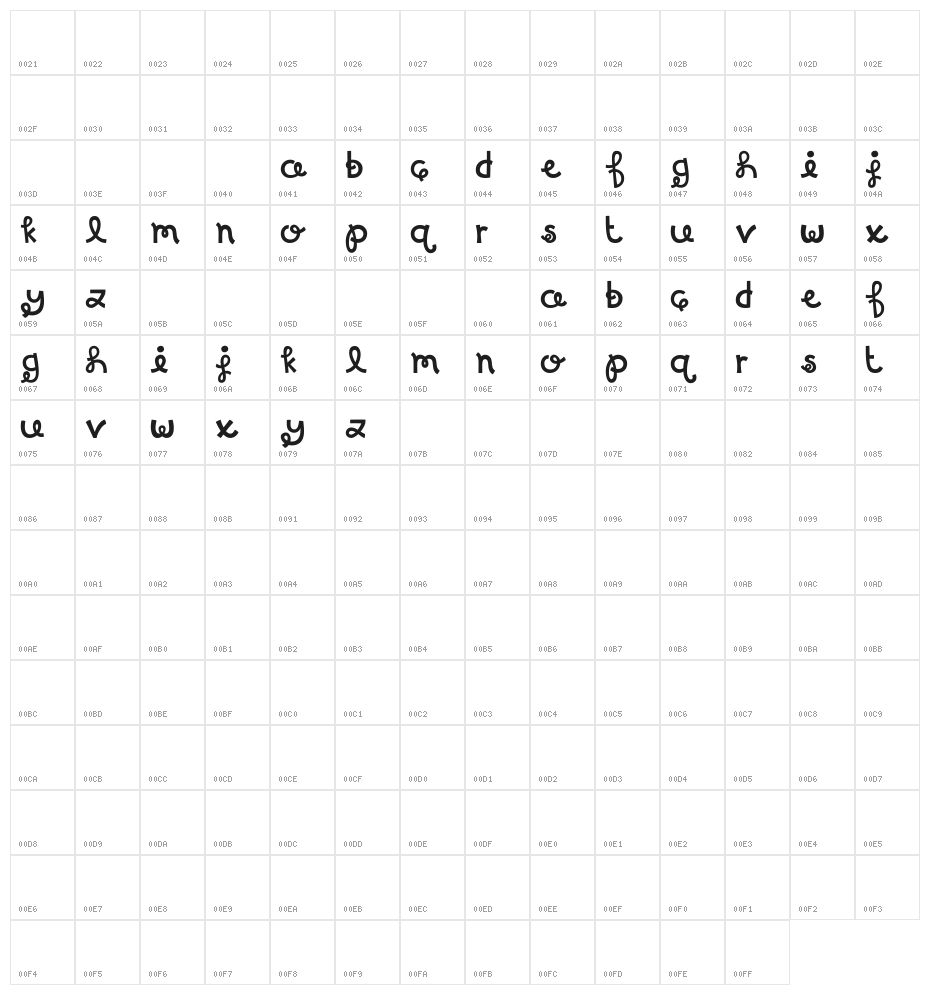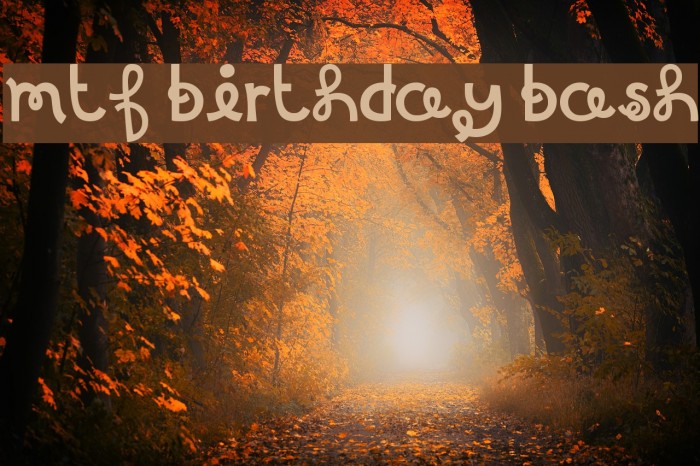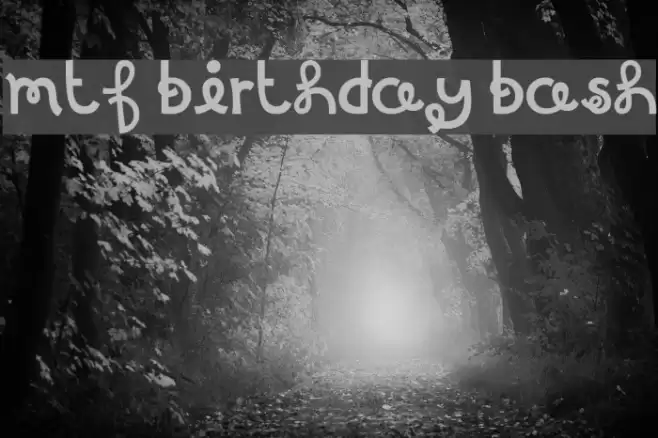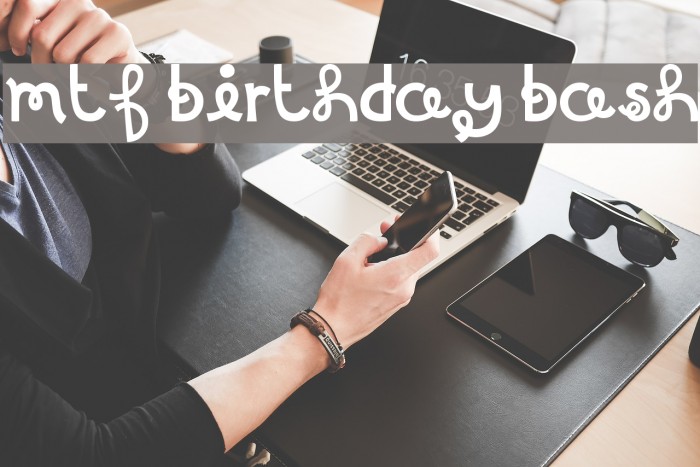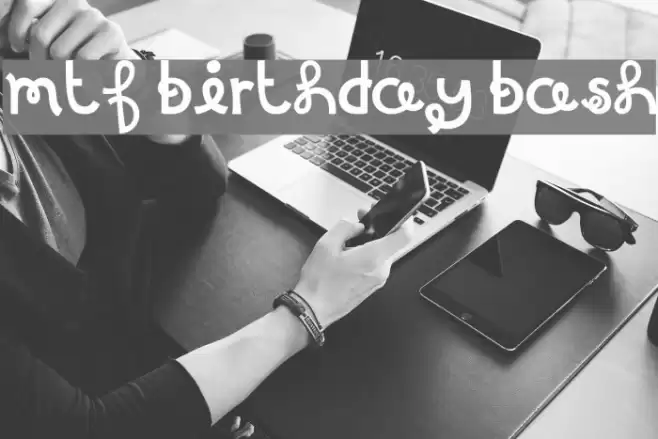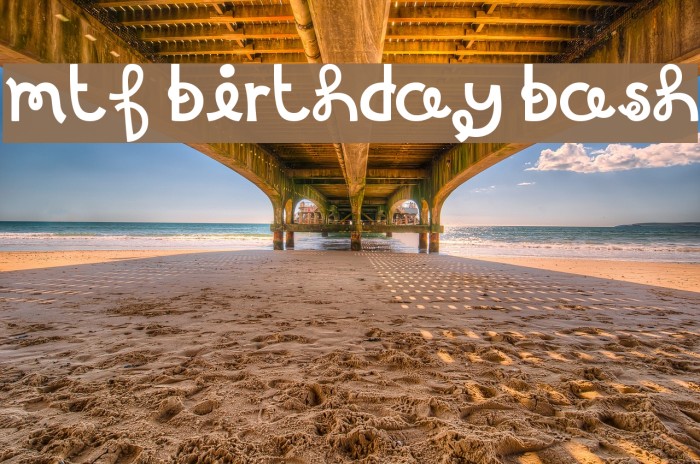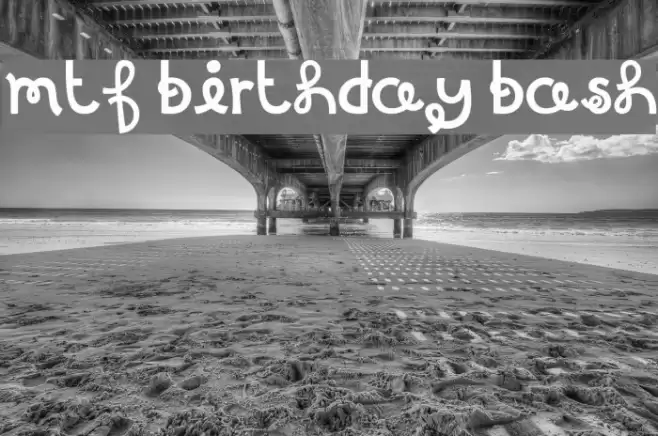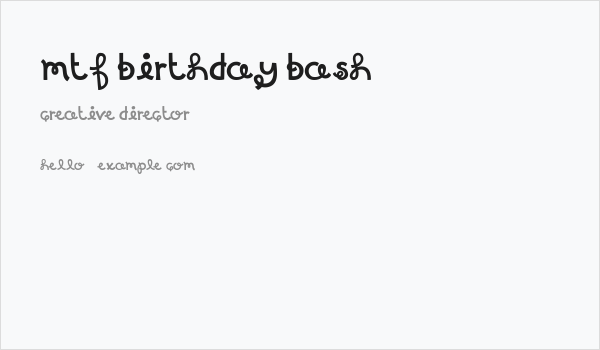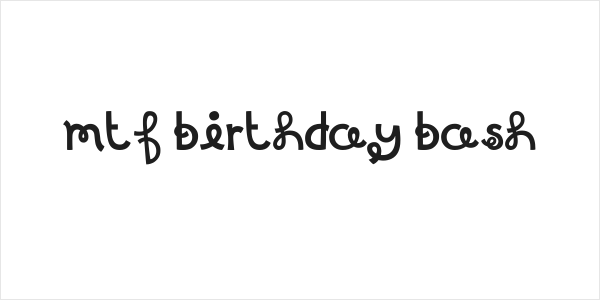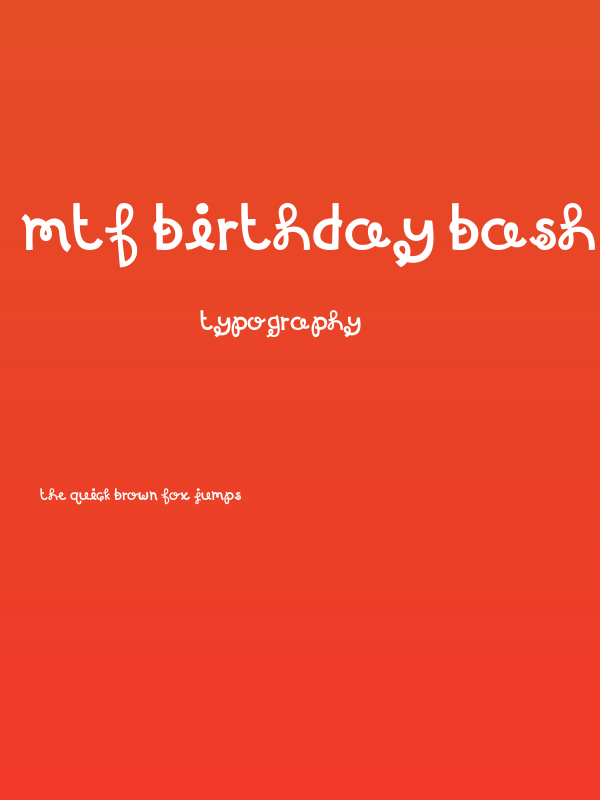
MTF Birthday Bash Font
MTF Birthday Bash Description
This font features a playful and whimsical design, characterized by its curly and looping letterforms. Each character has a unique flair, with exaggerated curves and swirls that give it a lively and festive appearance. The font maintains a consistent stroke width, contributing to its bold and eye-catching style. The lowercase letters are particularly distinctive, with some characters incorporating unexpected twists and turns. This font is ideal for projects that require a fun and celebratory touch, capturing attention with its decorative and animated look.
| Proposed Projects | Ideal for birthday invitations, party banners, children's book covers, and playful branding. |